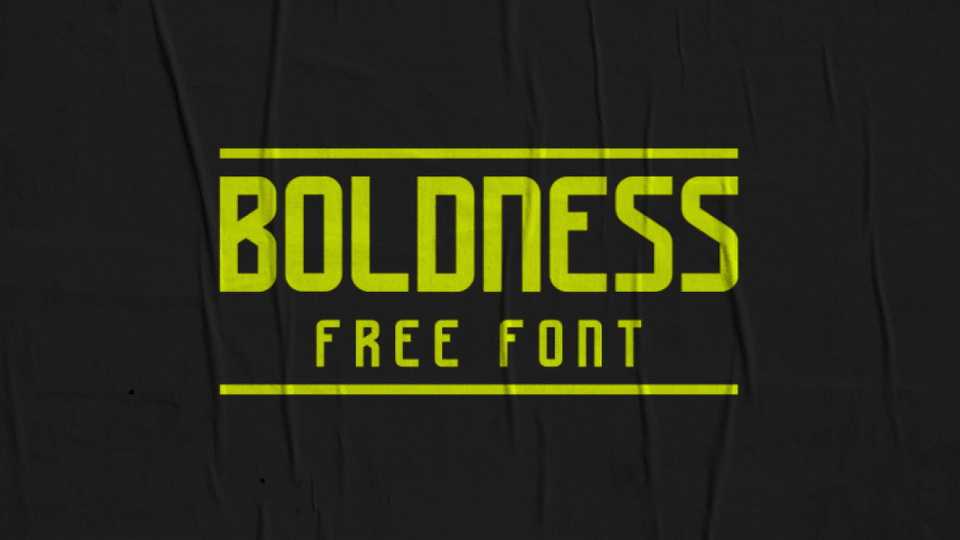
Download Boldness font, a modern sans serif display typeface. Boldness is perfect for bold headlines, posters, logos, branding and eye-catching messages.
Designer: Diego Inácio